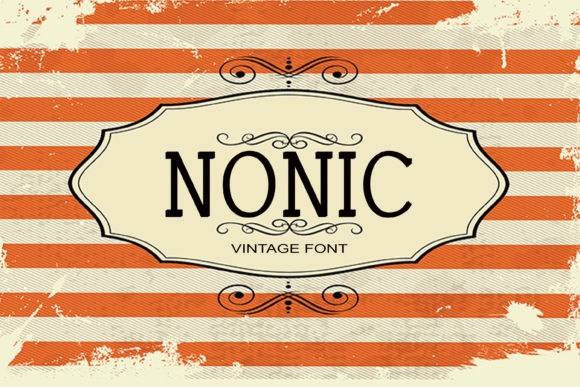
Nonic Font
Embark on a typographic journey with Nonic, a captivating serif font that exudes a timeless charm reminiscent of old-world elegance. Created by the talented team at DmDesignsStoreArt, Nonic is a font of distinction, designed to add a touch of sophistication and vintage allure to your creative endeavors.
With its graceful curves and elegant serifs, Nonic possesses an inherent beauty that elevates any design concept. Its refined character lends itself effortlessly to a myriad of projects, from classic wedding invitations and vintage-inspired branding to modern logos and eye-catching social media graphics.
Step into a realm of boundless creativity, where Nonic's versatility shines. Its timeless appeal seamlessly complements a wide range of design styles, from traditional to contemporary, making it an indispensable tool in your typographic arsenal. Unleash your imagination and let Nonic guide you towards stunning visuals that captivate and inspire.
Experience the allure of a bygone era with Nonic, a serif font that transports you to a time of elegance and grace. Its vintage charm adds a touch of nostalgia to your designs, evoking a sense of warmth and familiarity that resonates with audiences.
Nonic is not just a font; it's an experience. Embrace its timeless beauty, its versatility, and its ability to effortlessly elevate your designs. Download Nonic today and embark on a creative journey like no other.